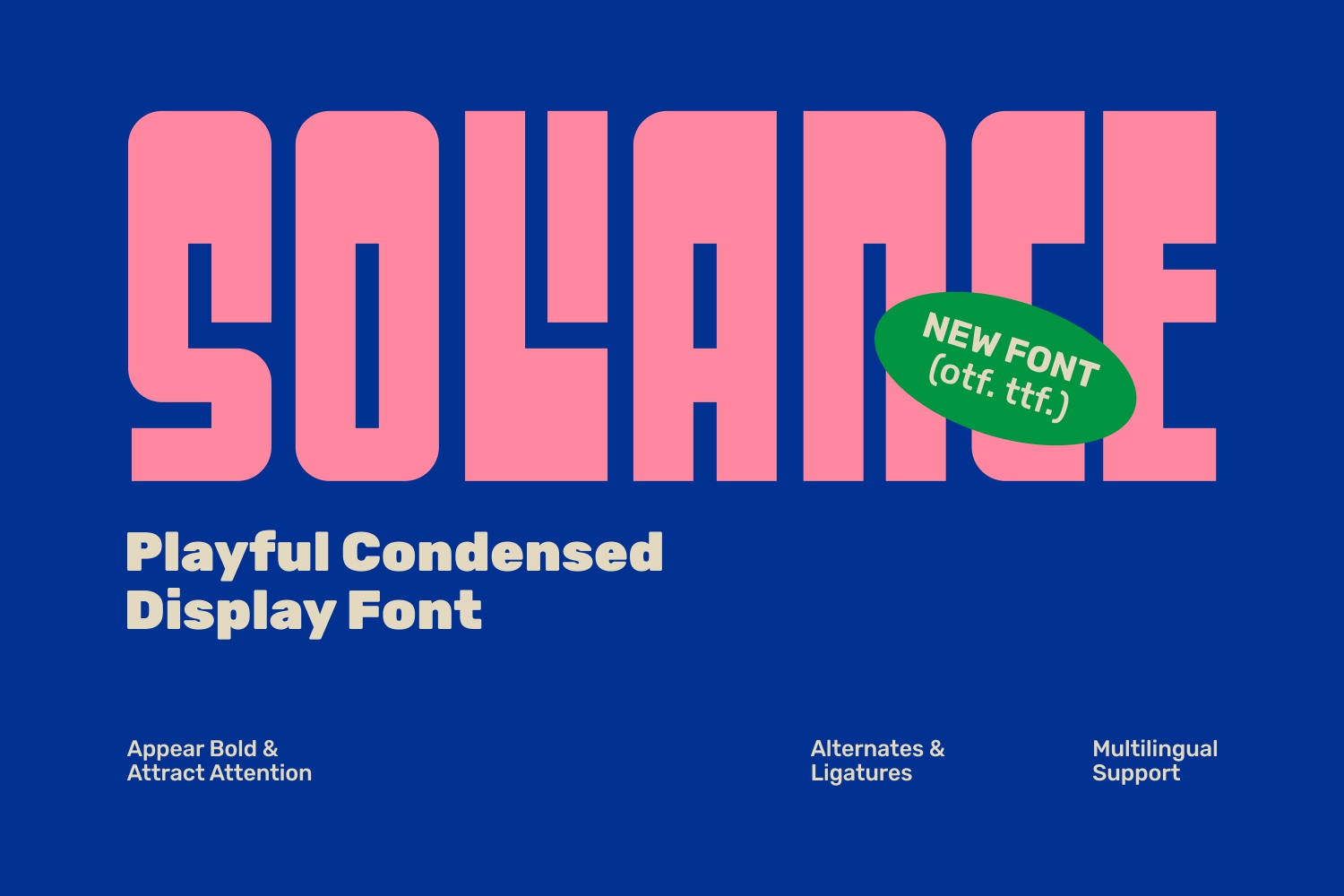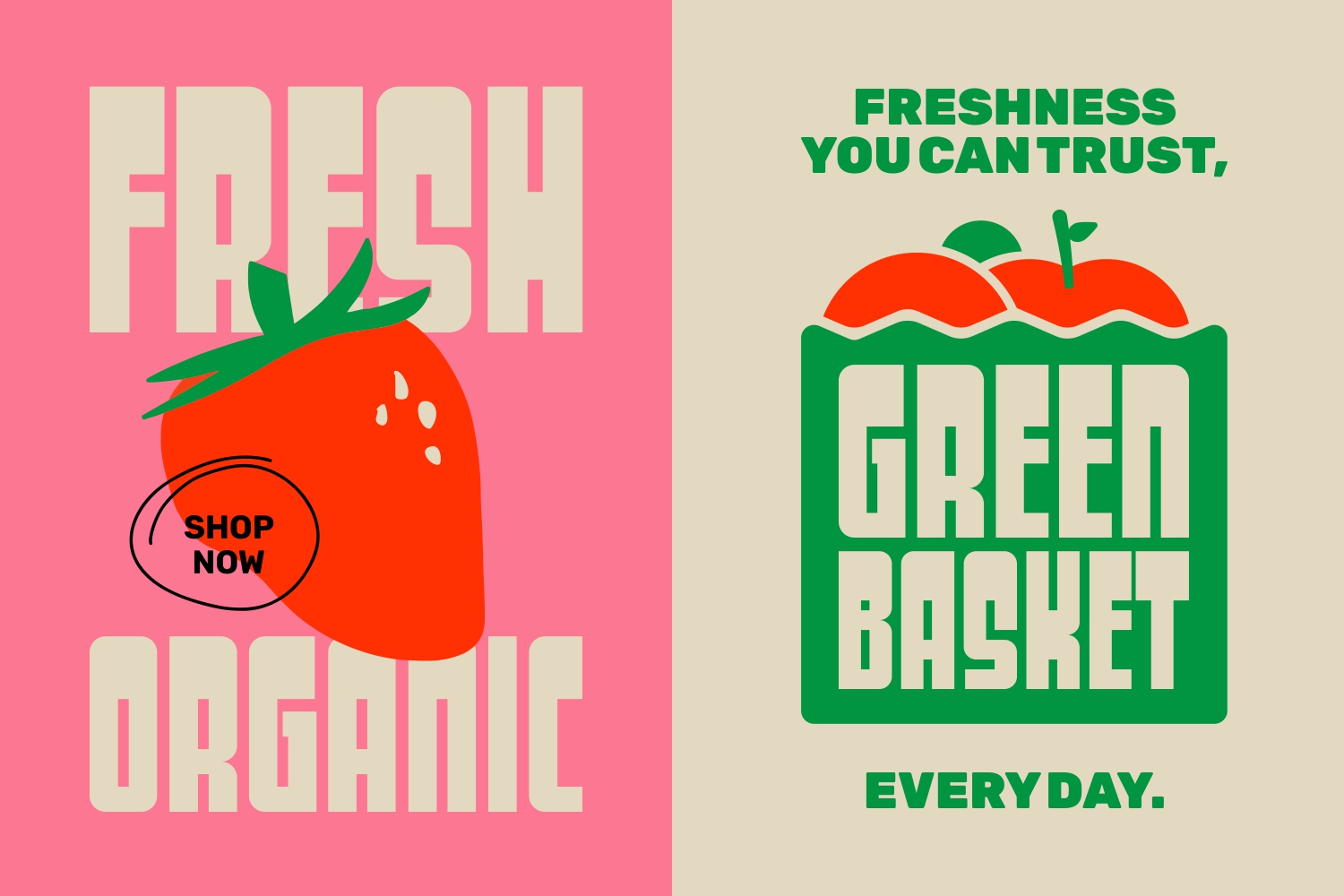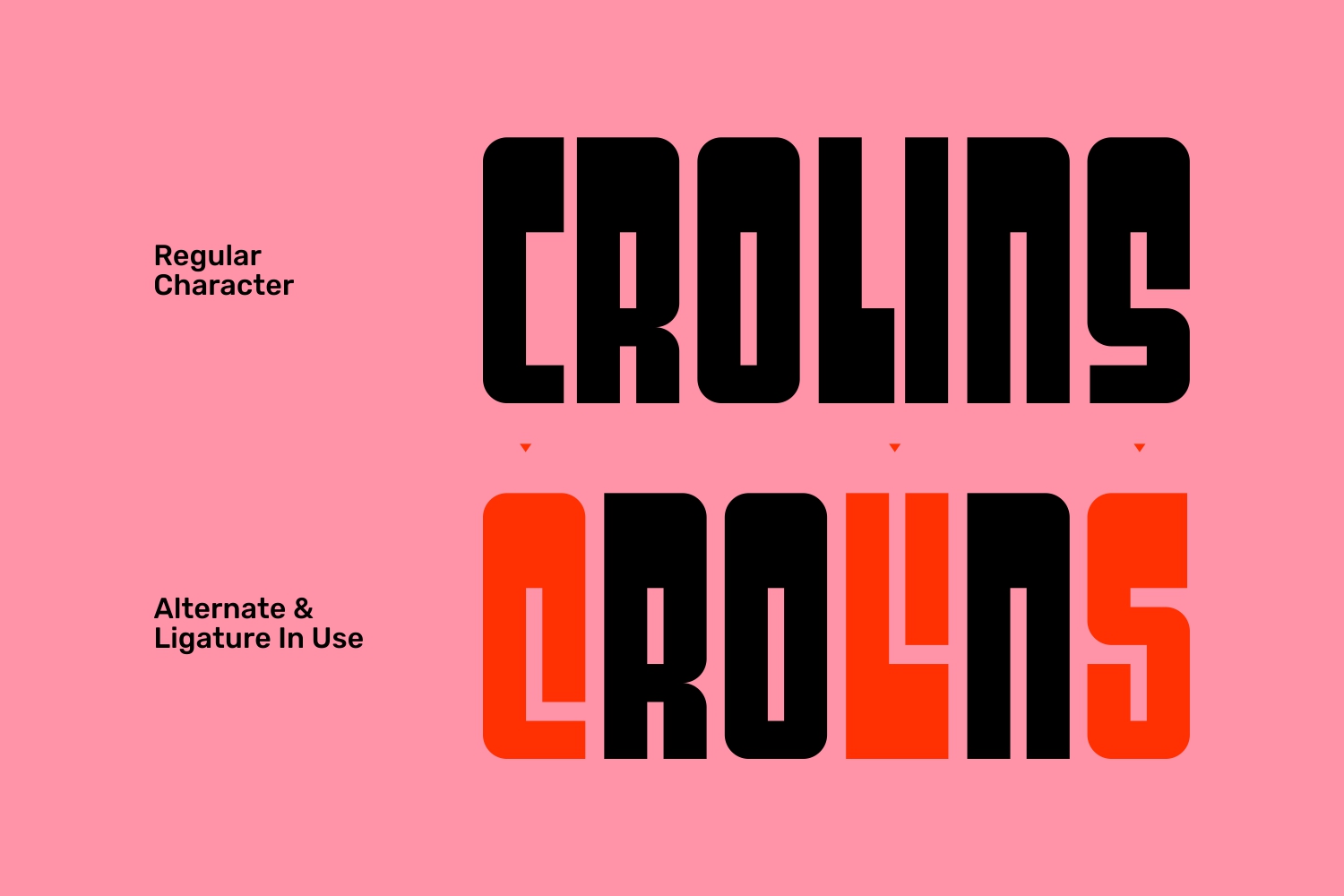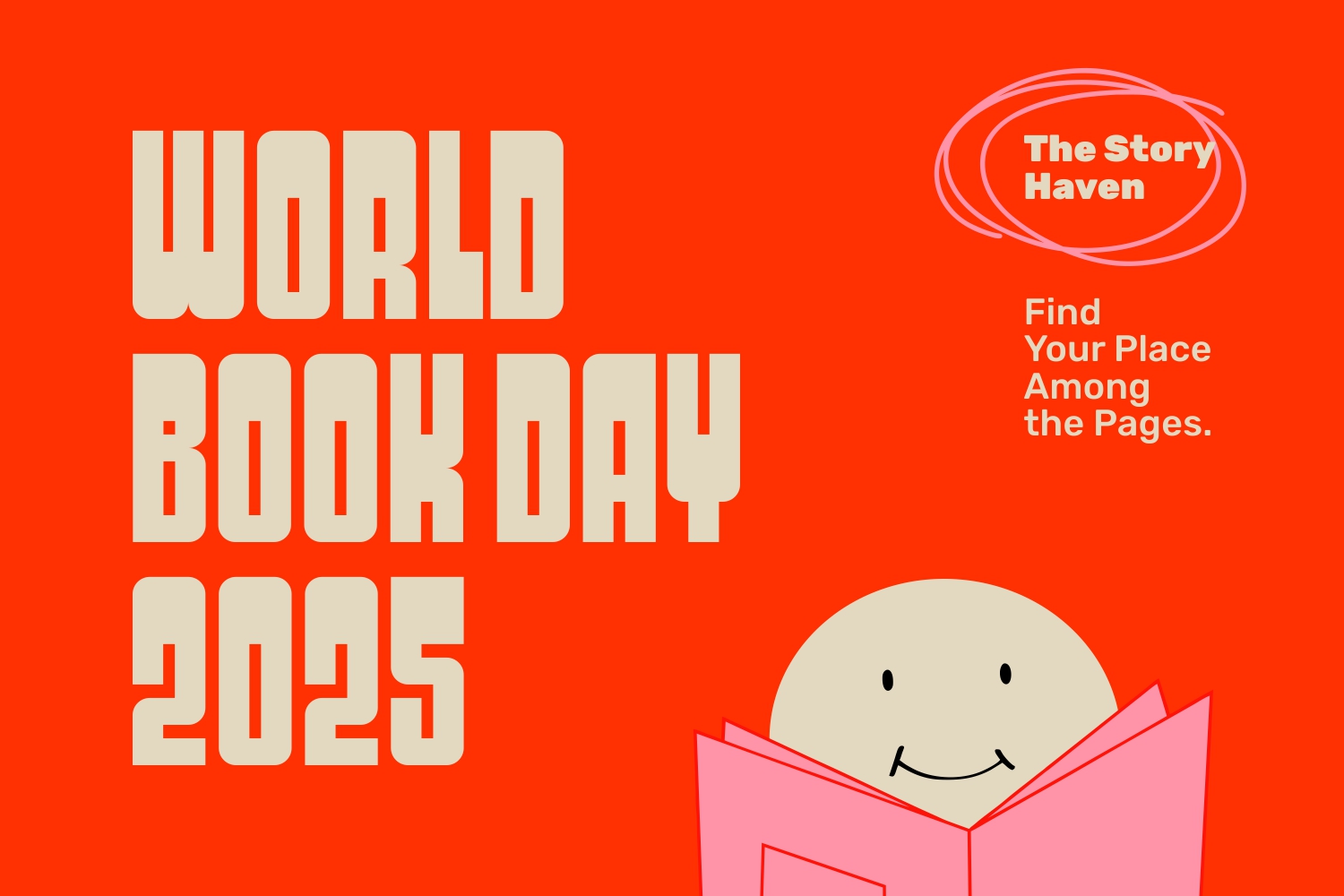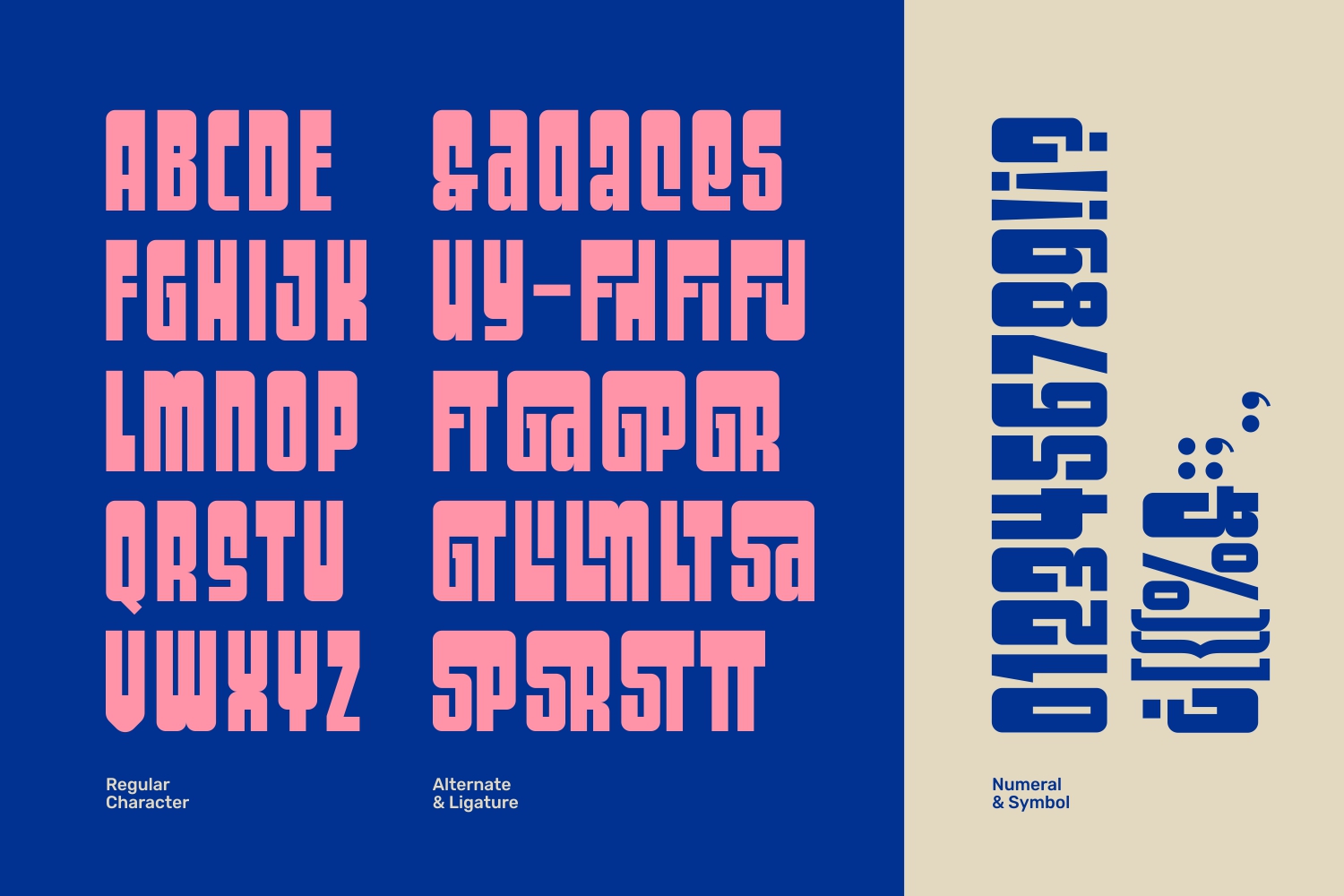
Soliance is a bold and playful condensed display font designed to make a lasting impression. With its thick, geometric strokes and creative ligatures, this font brings a vibrant personality to headlines, posters, branding, and packaging. Its unique letterforms strike the perfect balance between retro charm and modern confidence, making it ideal for grabbing attention in both digital and print projects.
Featuring alternate characters and multilingual support, Soliance gives designers creative flexibility for expressive typography. Whether you’re designing for a fun campaign, editorial spread, or bold logotype, Soliance ensures your message stands out with power and style.